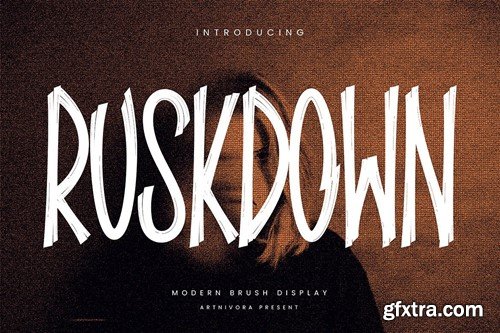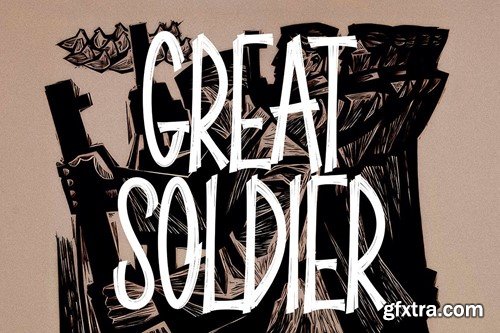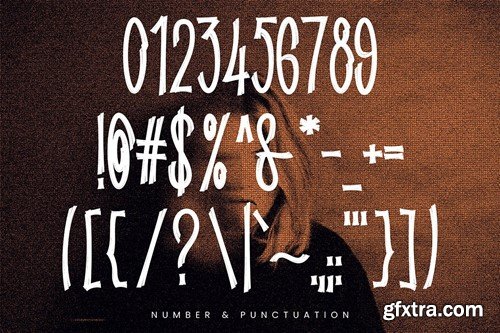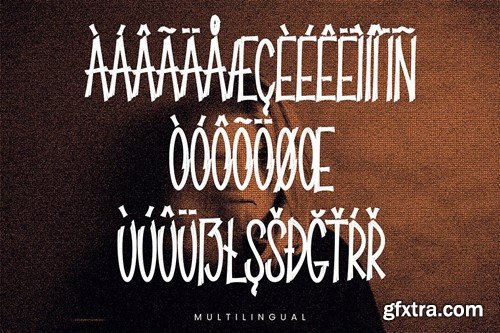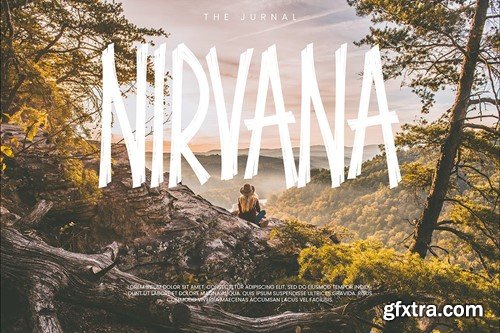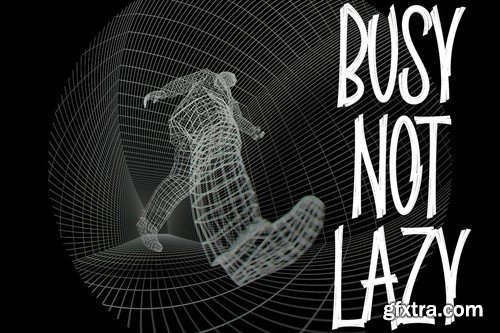
鲁斯库德 - 美术展示字体 FNP32HB
Ruskdown - Brush Display Font FNP32HB
Ruskdown - Brush Display Font
Introducing Ruskdown, a simple and brush display font. So perfect for you who needs a typeface for logo designs, magazine, social media, brochure, and many more.
• Uppercase
• Punctuation
• Numerals
• Multilingual Support